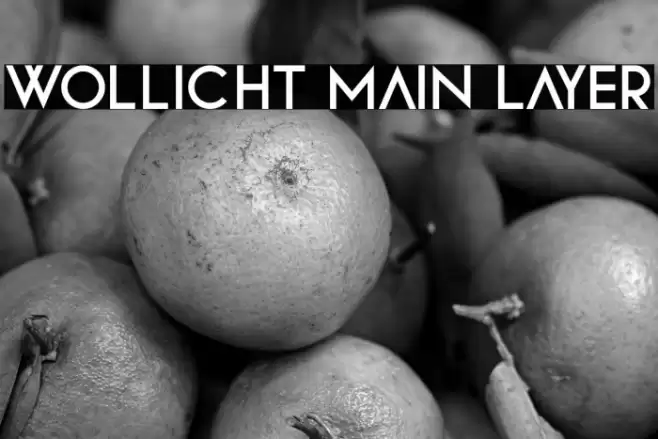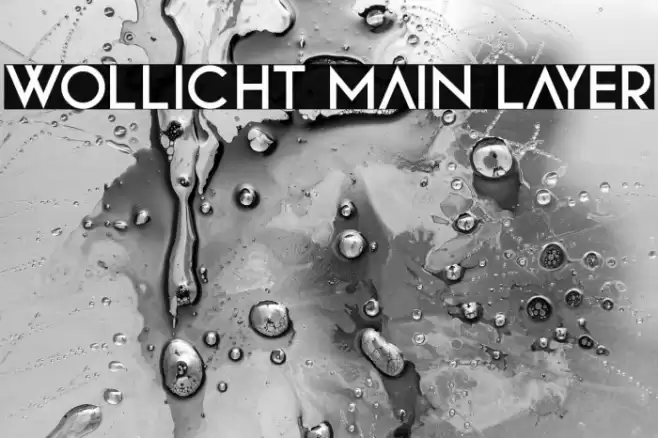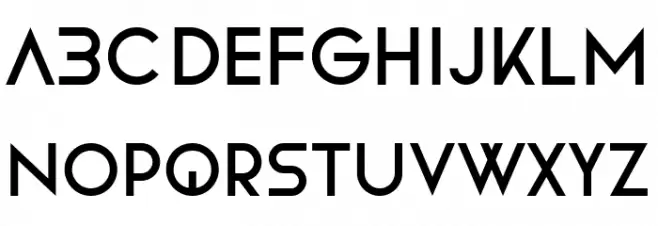
Wollicht Main Layer Font
Wollicht Main Layer Description
A geometric, sans-serif typeface with clean, angular lines and circular forms. The characters are uniform in width with a modern, minimalist aesthetic. Unique letterforms such as the stylized 'A', 'B', and 'R' add a distinctive, futuristic touch.
Geometric sans-serif with modern, angular shapes and unique letterforms from Uncategorized fonts.
- Font: Wollicht Main Layer
- Proposed Projects: Branding, technology logos, posters, editorial headlines, signage, packaging.
- Overall Style: Modern, Futuristic, Minimalist
- Use Case: Headlines, Logos, Posters, Branding